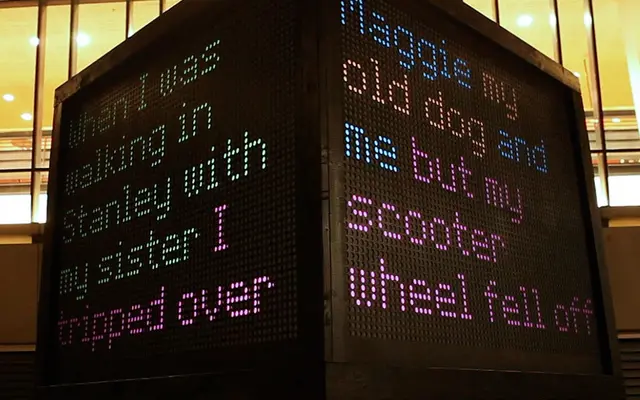
Foundry Plek
The Foundry Types · 2002
A dot matrix display typeface built on a strict 5x9 grid, designed for layering weights and colours to create dimensional, pattern-based typographic effects.
Each letterform is constructed from circular dots constrained to a 5x9 grid, with dot centres held in a fixed position across all four weights so that Light, Regular, Medium and Bold can be overlaid precisely. This fixed registration allows different colours to be applied within the same text block, producing a layered, dimensional result. An auxiliary grid font ships with the family, letting designers extend the dot matrix pattern beyond the letters themselves.
Foundry Plek is built entirely on a 5x9 dot matrix grid system where circular dot letterforms scale in weight while keeping dot centres fixed. This places it firmly in the display/dot matrix category, designed for layering, pattern-making and graphic experimentation rather than body text.